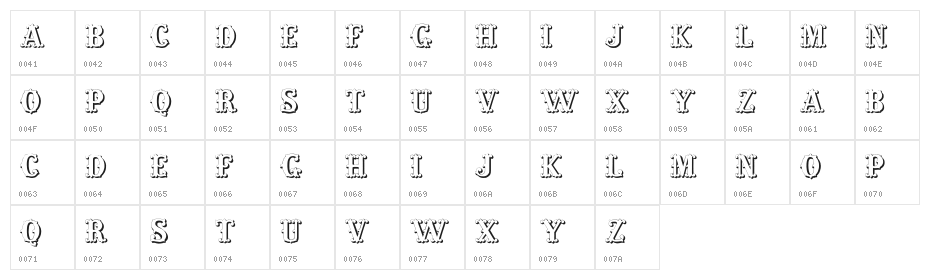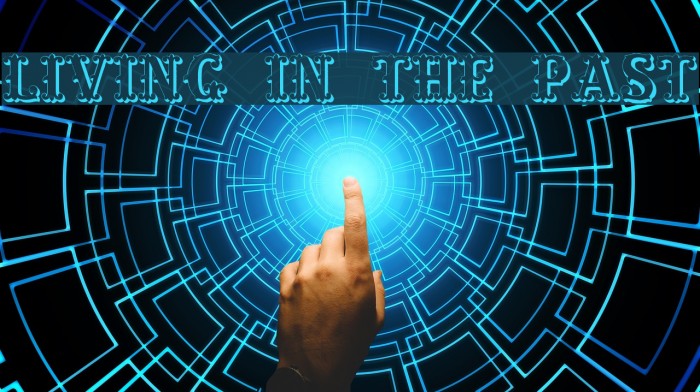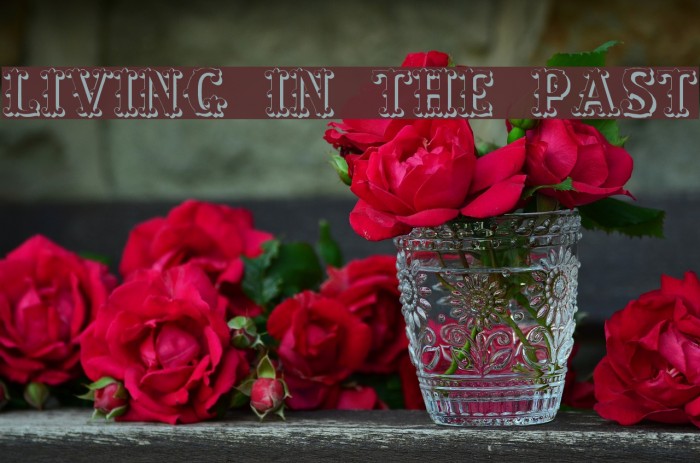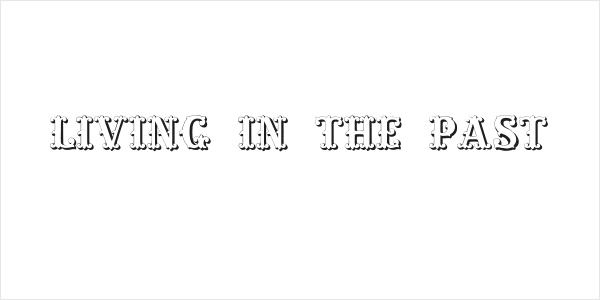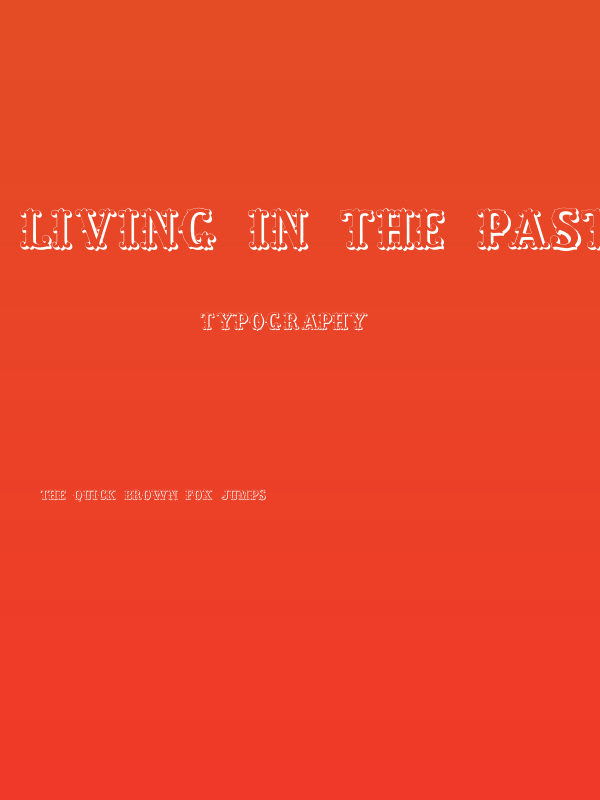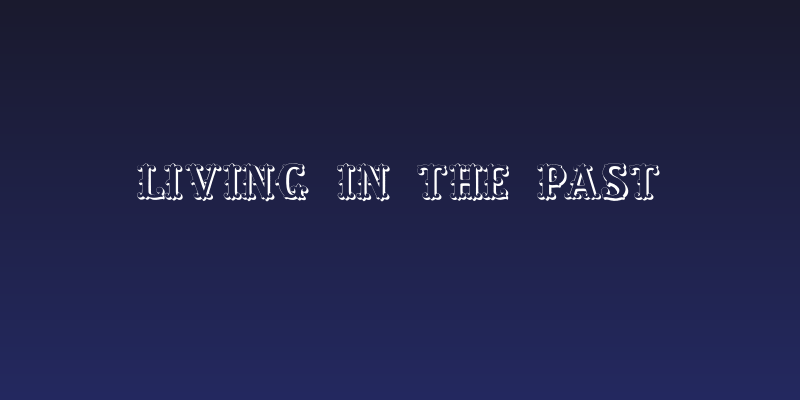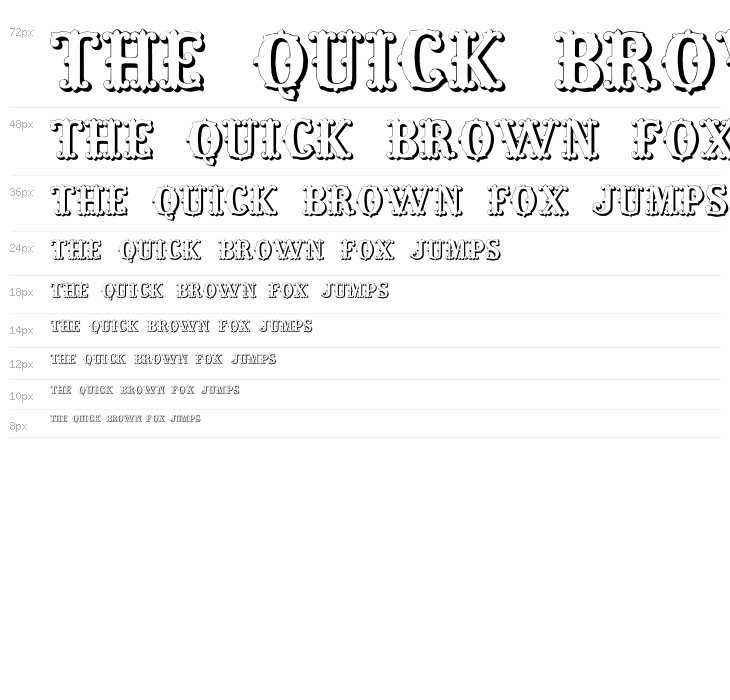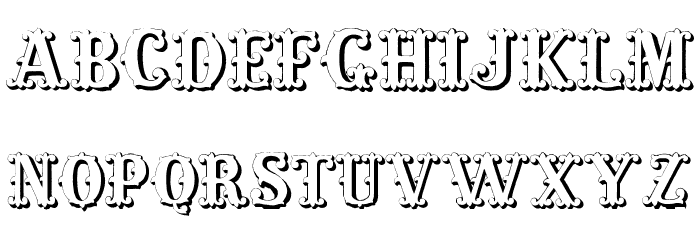
Living in the Past Font
Living in the Past Description
This font features a bold and decorative style with intricate detailing reminiscent of vintage circus or carnival posters. Each character is adorned with ornamental flourishes, giving it a playful yet sophisticated appearance. The letters are uppercase, with a consistent height and width, creating a uniform look across the typeface. The design includes shadowing effects that add depth and dimension, enhancing its visual appeal. This font is ideal for creating eye-catching headlines or titles that require a touch of nostalgia and flair. Its unique style makes it suitable for projects that aim to capture a retro or whimsical aesthetic.
| Proposed Projects | Ideal for vintage-themed posters, event invitations, or branding that requires a nostalgic touch. |